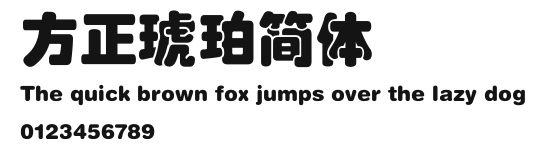
方正琥珀简体 Preview
• Font Name: 方正琥珀简体
• Font ID: Founder:方正琥珀简体 Regular
• Full Font Name: 方正琥珀简体
• PostScript Name: FZHPJW--GB1-0
About 方正琥珀简体.ttf
方正琥珀简体.ttf is a modern, elegant sans-serif font designed for ultimate readability and visual harmony. Perfect for branding, headlines, web design, and print materials.